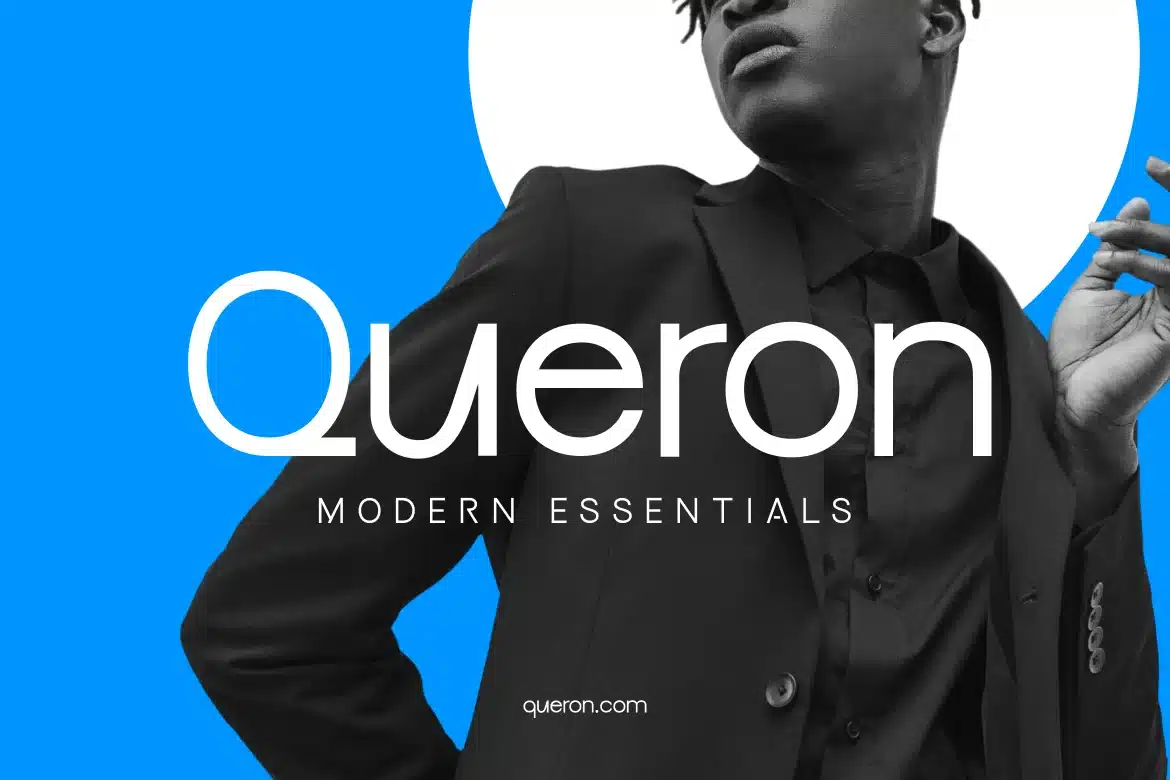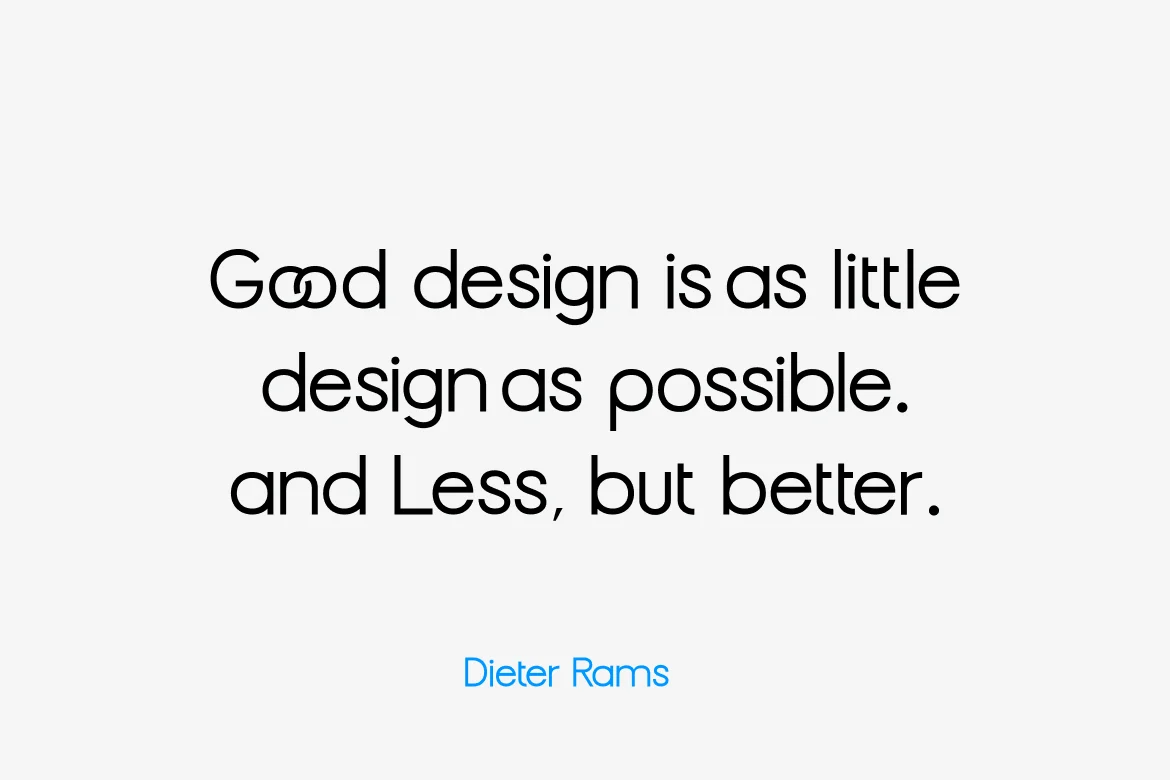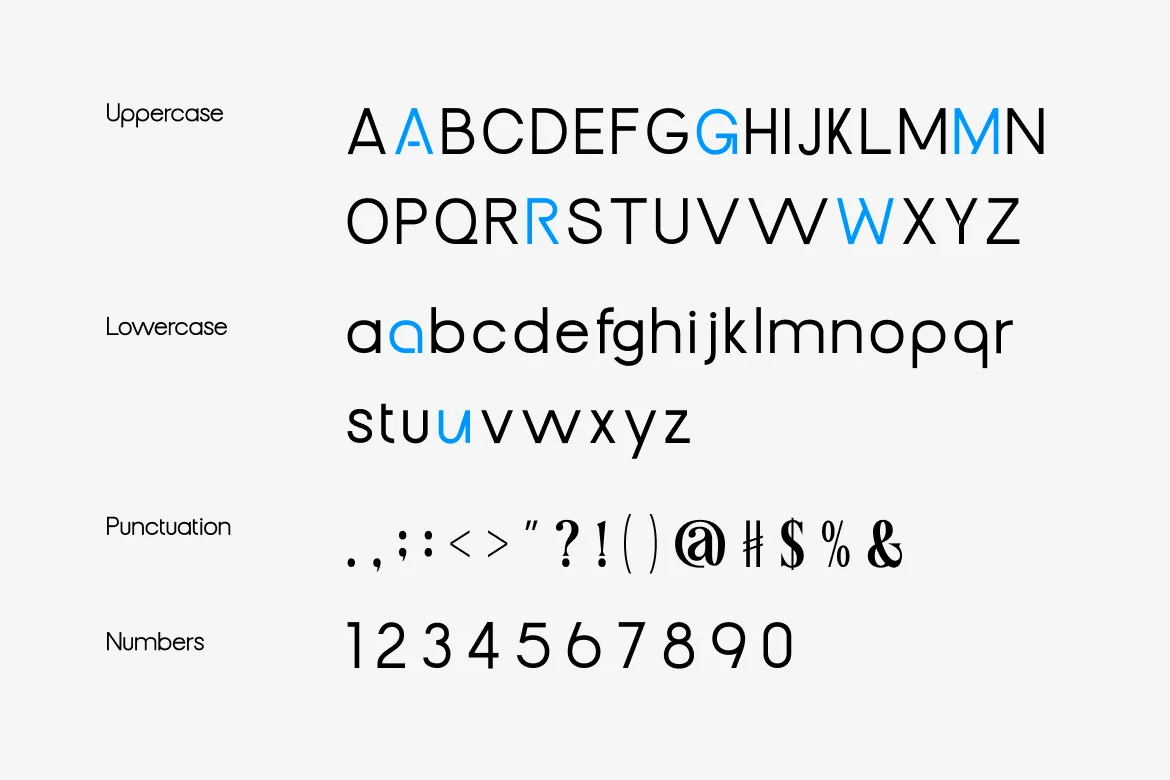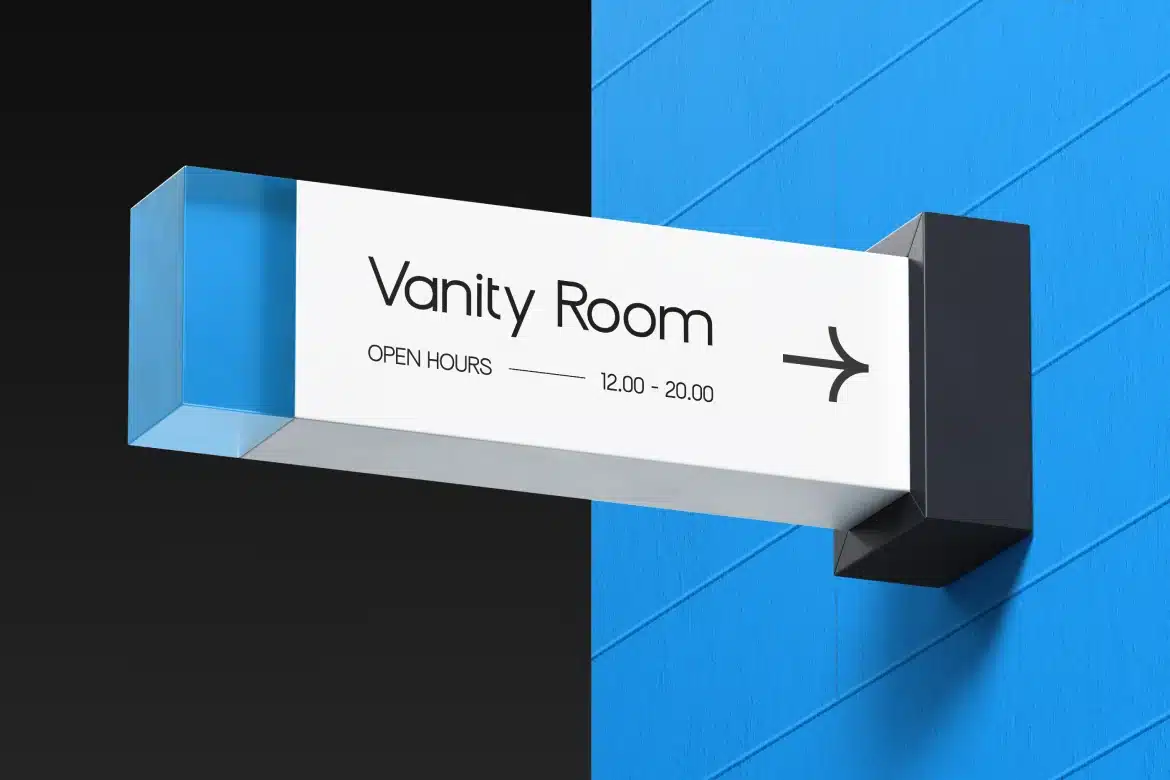
Groominu Modern Geometric Sans Serif Font
Groominu is a clean, minimal geometric sans serif typeface designed with bold precision and subtle character play. Featuring unique custom ligatures and rounded balance, Groominu brings a sleek and modern aesthetic that’s perfect for branding, digital design, fashion, and tech-forward identities. The font includes uppercase and lowercase characters, numbers, punctuation. Groominu offers both high readability and distinct personality for contemporary creatives.
Relevance and Use Cases is perfect for forward-thinking branding and design. It’s ideal for tech companies, fashion startups, creative agencies, app UI/UX design, and modern editorial layouts. The font’s clean geometry ensures clarity, while its unique characters add just the right touch of originality to make any design stand out.
Main Features
- Uppercase & Lowercase characters
- Numeral & Punctuations
- Alternate Support